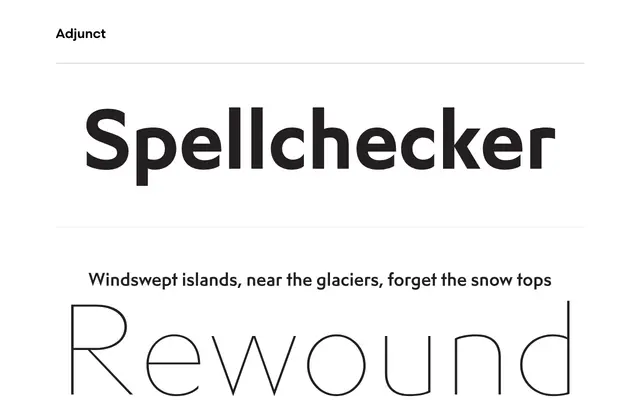
Adjunct
Process Type Foundry · Eric Olson · 2023
A spurless sans-serif by Eric Olson that distils a century of simplified-stroke design into a family balancing geometric structure with humanistic warmth.
Eric Olson traces the spurless genre from Nebiolo's Semplicità in the late 1920s through to Hans Reichel's FF Dax in the 1990s, then draws his own synthesis with nearly circular letterforms whose abbreviated stem terminations prevent monotony. The family runs across five weights with italics and includes a monospaced cut, making it useful across both editorial and interface contexts. OpenType features cover tabular and old-style figures, case-sensitive glyphs and a small set of directional arrows and patterns.
Adjunct is a spurless sans-serif drawing on the geometric-humanist tradition, with nearly circular letterforms tempered by humanistic stroke entry and exit treatment rather than strict geometric rigidity.